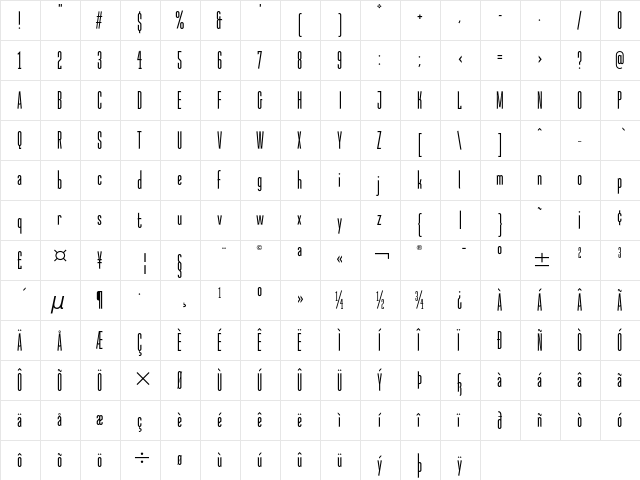
Malstock ITC Regular
Design Context for Malstock ITC Typeface
Malstock ITC offers clean, dependable letterforms without strong stylistic allegiance, making it a practical choice for designers who need flexibility.